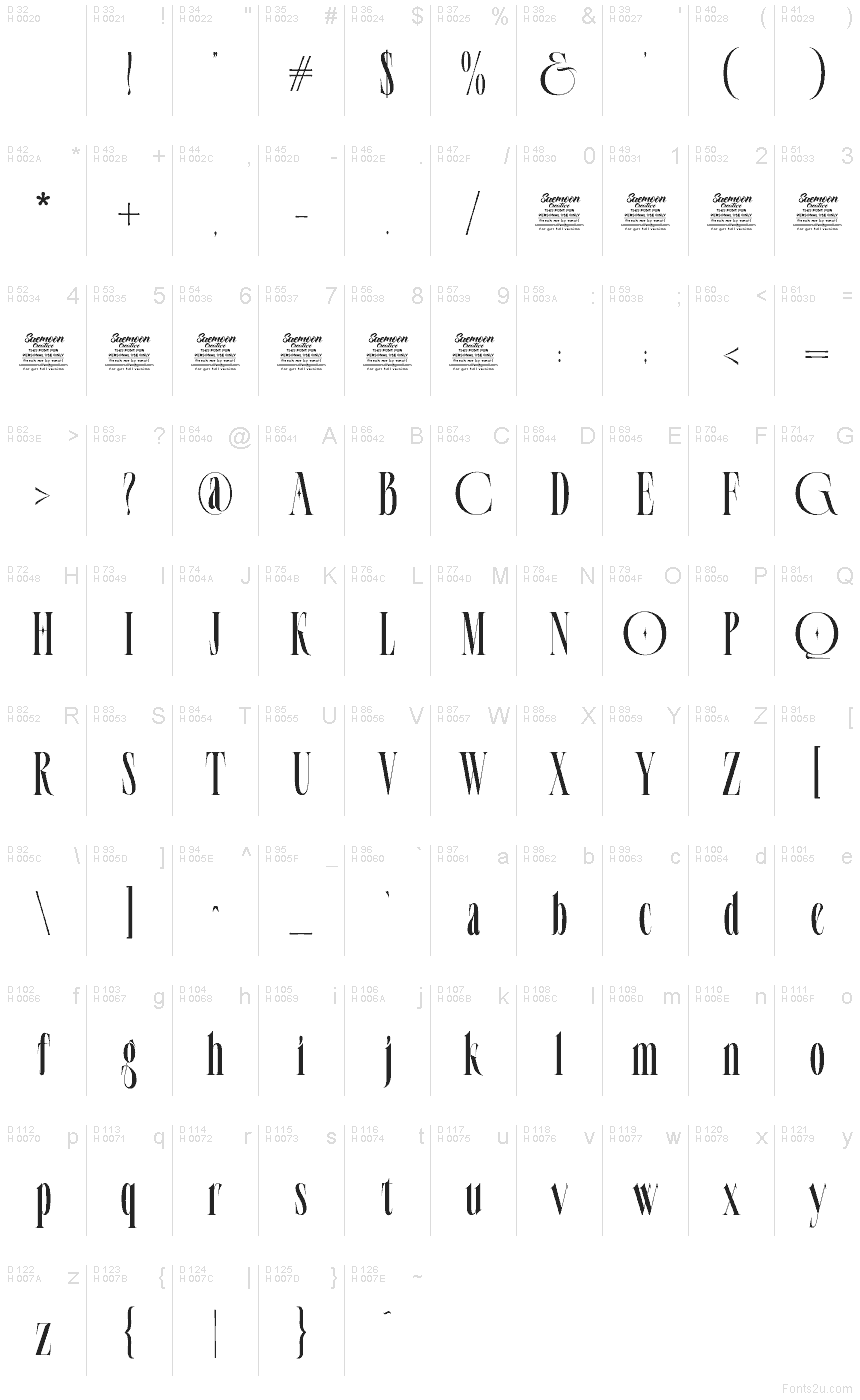
Cerova Regular
Cerova font, by Sapto Susilo of Saemoon Creative, is a modern serif with artistic flair and sophistication. Its condensed character structure mixes between elegance and readability offered in both upper and lowercase letters. Laid-back and timelessly fashionable, Cerova is also relatively quite delicate while effortlessly capturing the viewer’s attention.
This free typeface features exquisite character details for text that will shine on elegant logotypes, branding projects, magazines, posters, advertisements or any other visual identity project. Web designers might also use it to upgrade website headings or body copy.